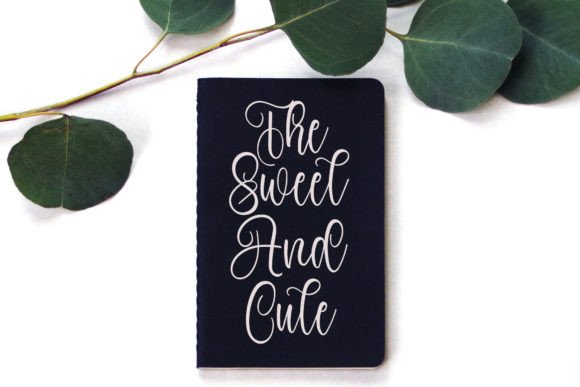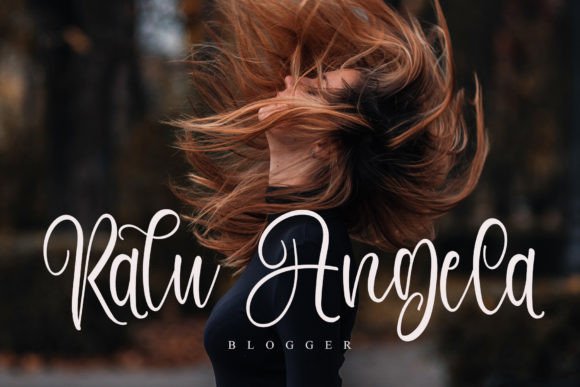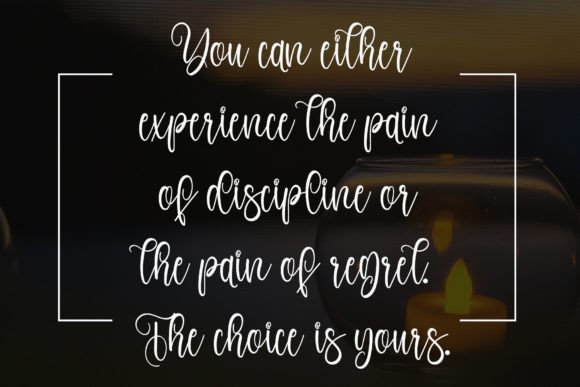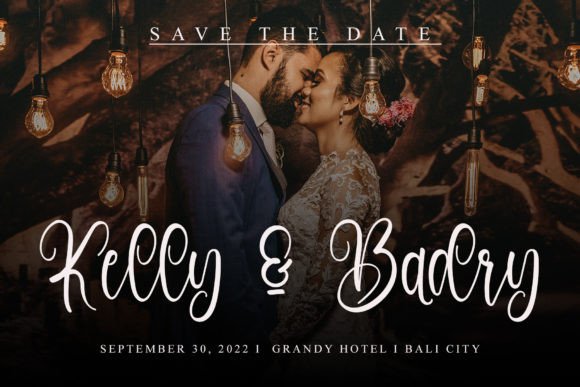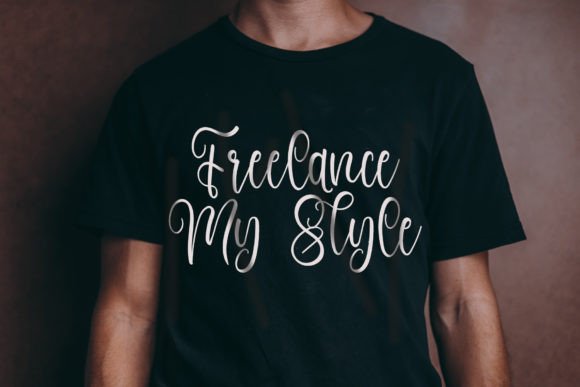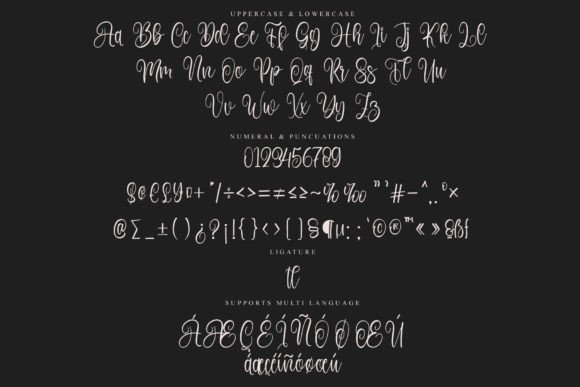
The Quest for the Perfect Font: Discovering Dignity
I’ll never forget the frustration of working on a design project, hours spent crafting the perfect layout, only to realize that the font I was using just wasn’t cutting it. The client wanted something elegant, yet modern; classic, yet attention-grabbing. Sound familiar? That’s when I stumbled upon Dignity, a stylish handwritten font that has since become a staple in my design toolkit.
A First Impression: What Makes Dignity Special
Dignity is a beautifully crafted font, inspired by timeless classic calligraphy. Its contemporary atmosphere and impeccable form make it perfect for designers, crafters, and creative hobbyists looking to elevate their projects. With its balanced and varied design, Dignity is sure to enhance the beauty of your work.
What I Love About Dignity ✨
- ✅ Elegant, cursive script with a modern twist
- ✅ Beautifully crafted to evoke a sense of sophistication
- ✅ Perfect for a wide range of design projects, from branding to wedding invitations
- ⚠️ Some users may find the font a bit too ornate for certain projects
- ⚠️ Limited availability of condensed or extended versions
- Explore the various OpenType features, such as stylistic alternates and swashes
Exploring Alternatives: Similar Fonts to Dignity
The Story Behind Dignity: Designer Inspiration
While the true story behind Dignity’s creation may be unknown, it’s easy to imagine a designer sitting at their desk, pouring over classic calligraphy texts and seeking to create a font that would bring a touch of elegance to modern design. With Dignity, they’ve succeeded in crafting a font that’s both timeless and contemporary.
Q: What type of projects is Dignity best suited for?
A: Dignity is perfect for a wide range of design projects, including branding, wedding invitations, and marketing materials.
Q: Is Dignity a difficult font to read?
A: No, Dignity is highly legible, even at smaller font sizes. Its elegant design ensures that your text will be easy to read.